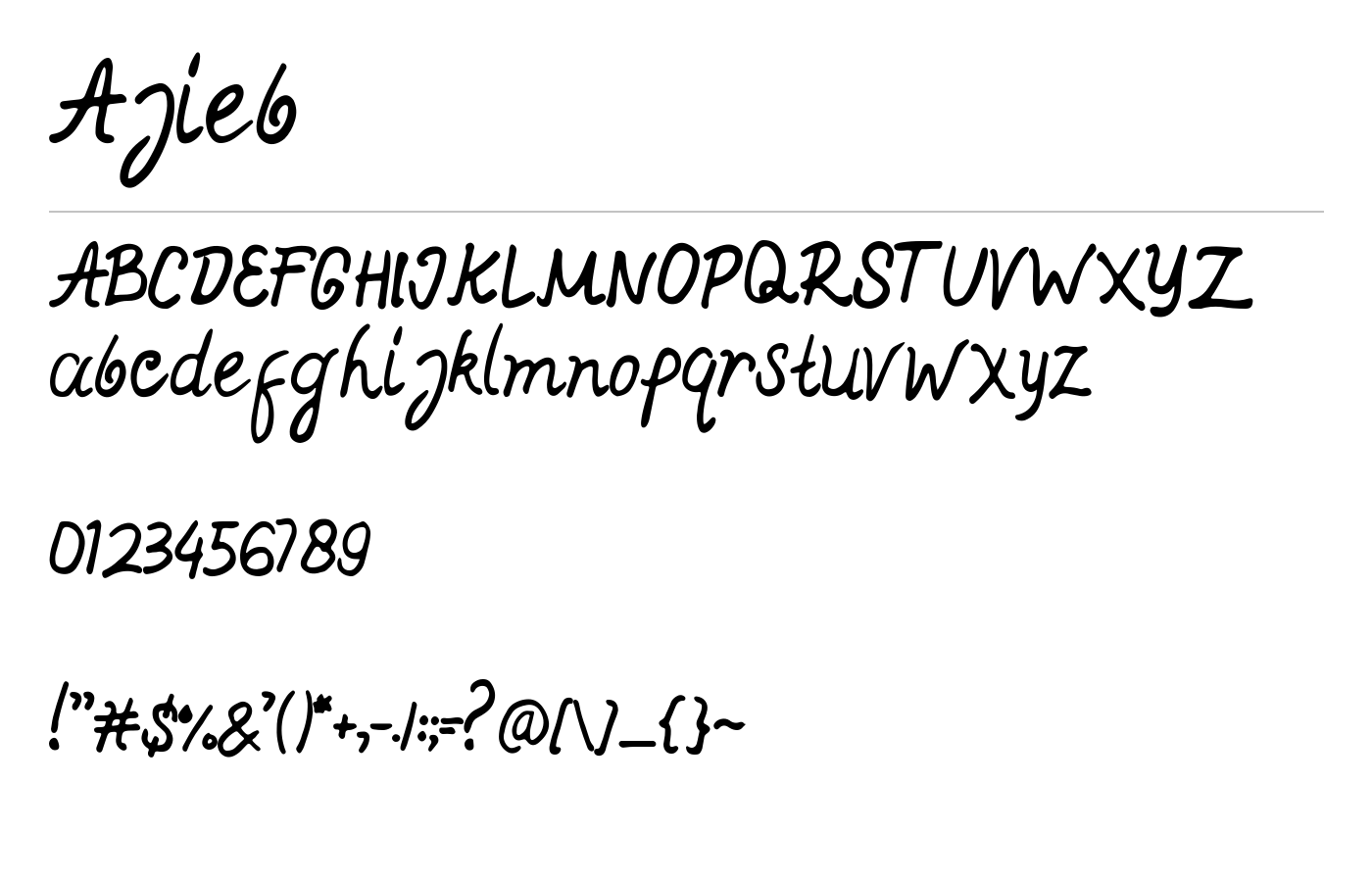
Ajieb is a casual script font with a lively and organic feel, featuring handwritten-style letterforms that are slightly slanted and uneven, adding a personal touch. Its medium weight and smooth, flowing strokes make it ideal for playful and friendly designs, such as informal branding, invitations, or creative headlines where a warm, approachable vibe is desired.
Ajieb Font
About Ajieb Font
| Font family | Ajieb Font |
| Designer | artpace 2018 |